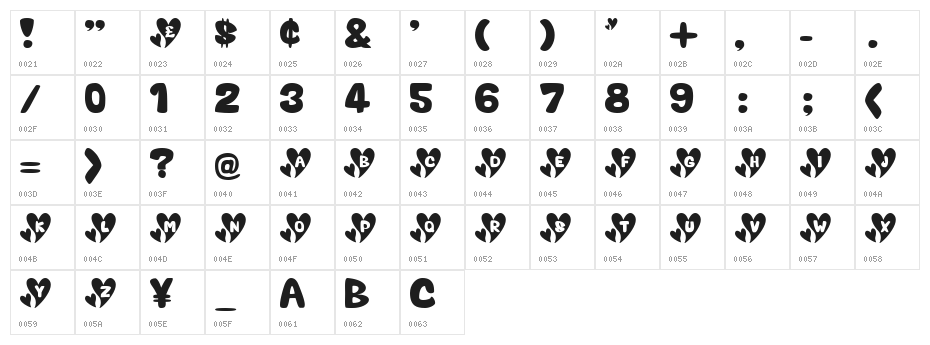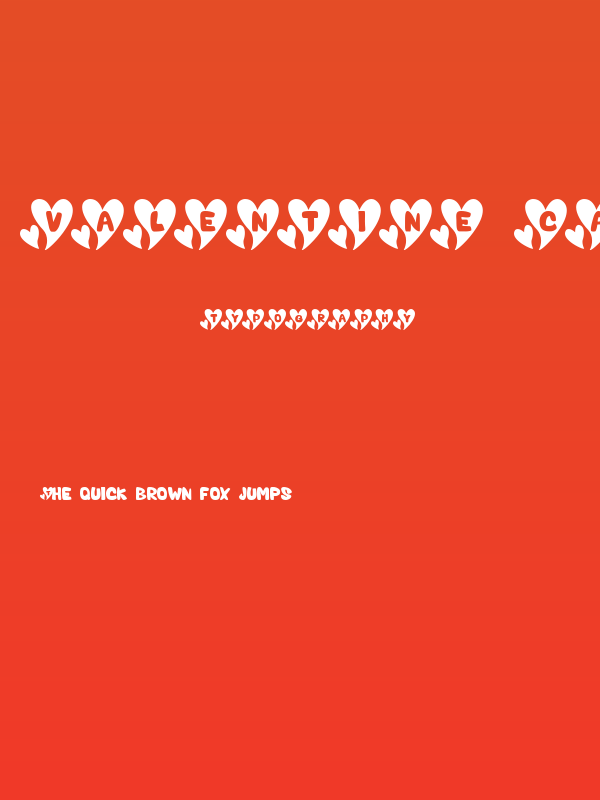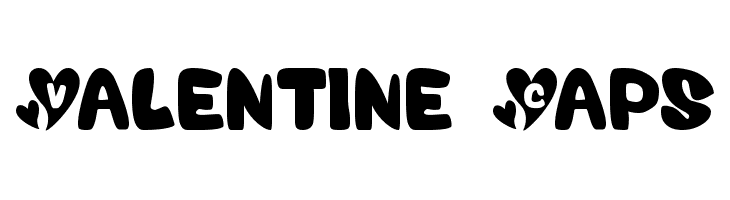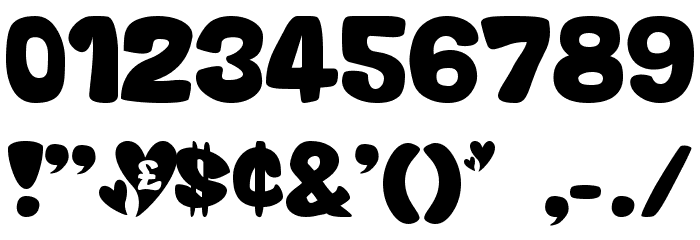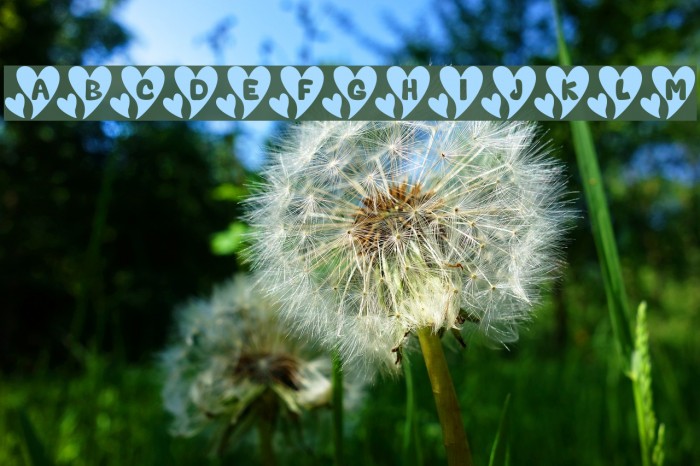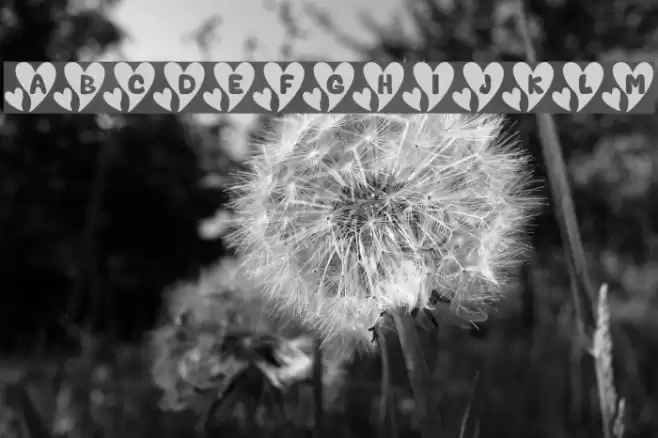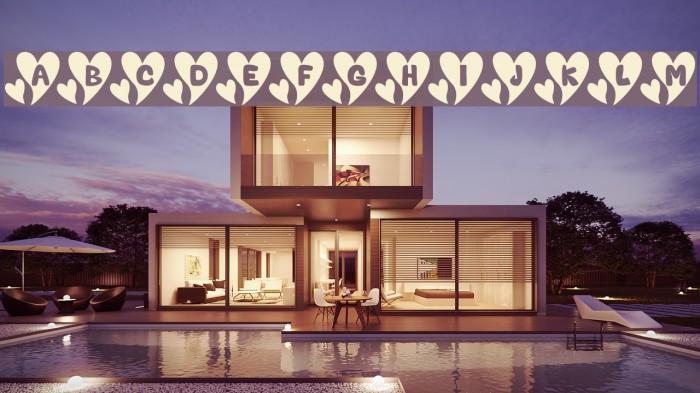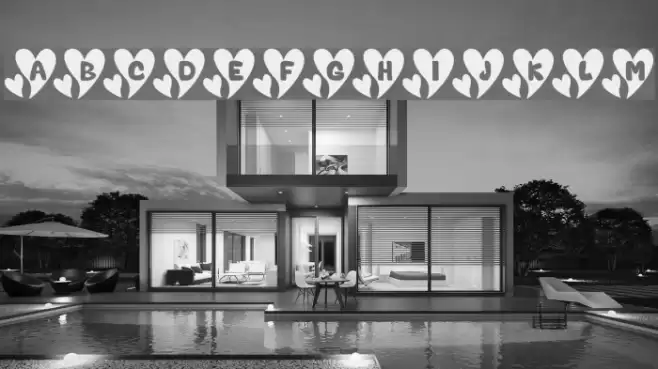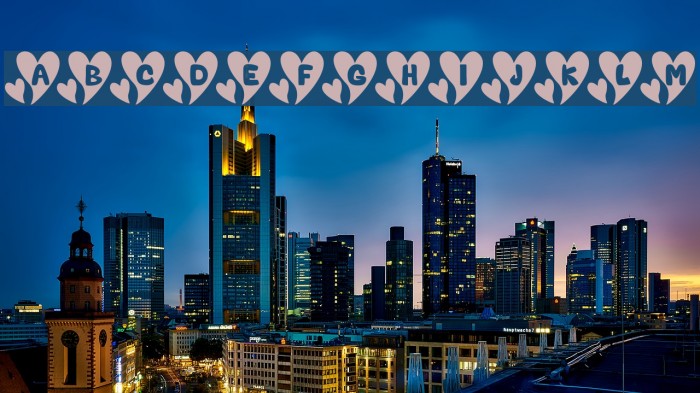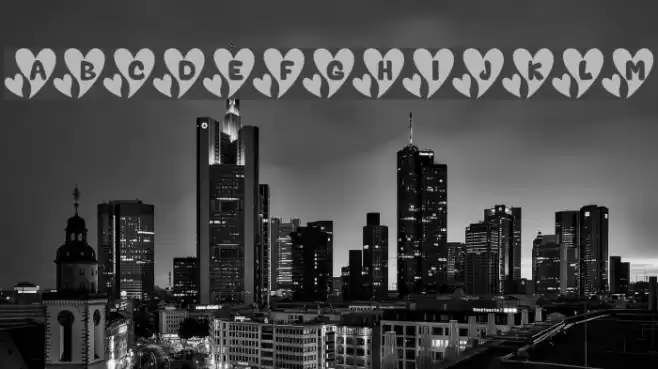
Valentine Caps Font
| 全体的なスタイル | Playful, Romantic |
| 用途 | Headlines, Logos, Invitations |
| おすすめプロジェクト | Ideal for Valentine's Day cards, wedding invitations, playful branding, and festive posters. |